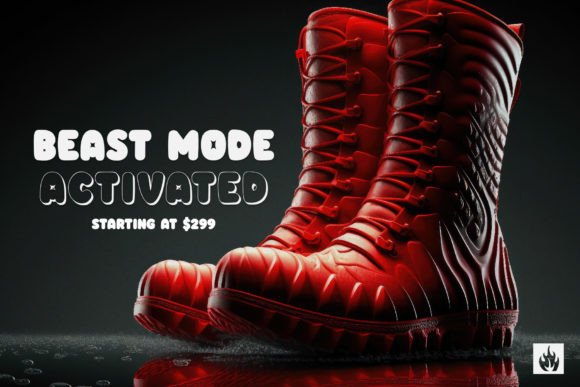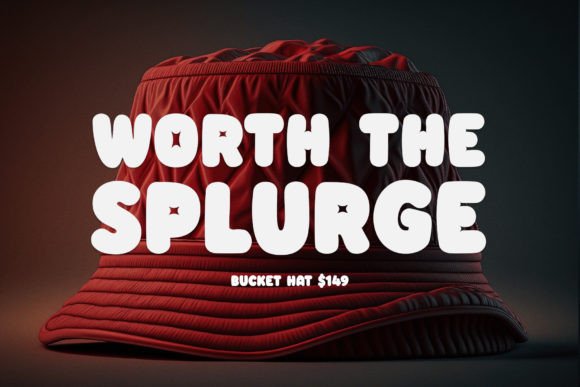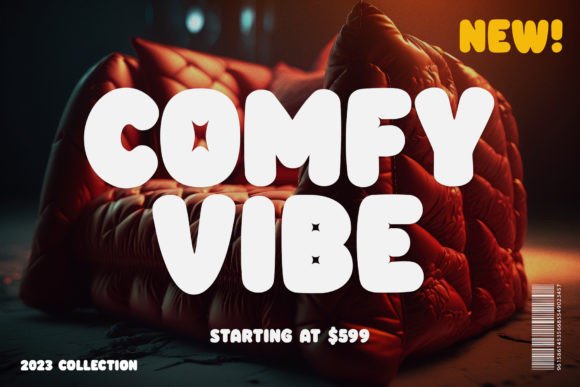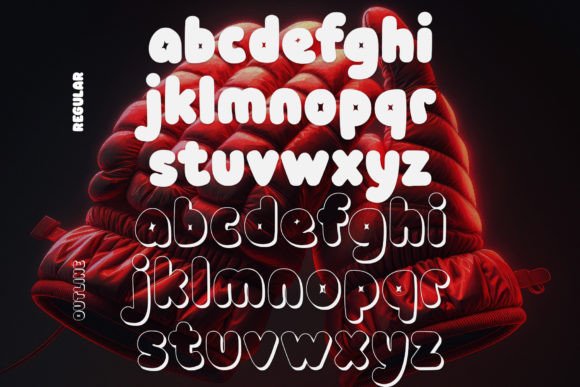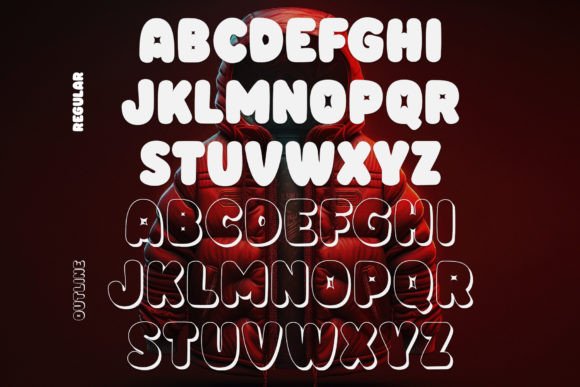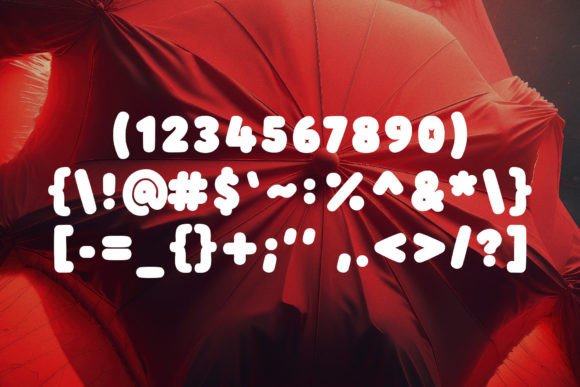
Introduction to Double Bubble Font
Double Bubble is a fluffy bubble display typeface.
Each letter floats playfully on its own, ready to jump off the page at any moment The mesmerizing text you can create with Double Bubble is bound to bring shimmering joy to the viewer.